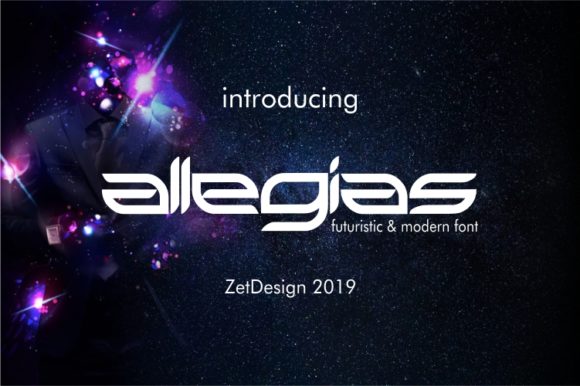
Behold, Allegias—a font family that's destined to make your designs shine brighter than the stars. From the visionary minds at ZetDesign, Allegias emerges as a modern masterpiece. Its sleek, futuristic design will transport your words straight into the future.
With its bold strokes and captivating curves, Allegias commands attention like no other. It's the perfect font to make your projects stand out, whether you're crafting stunning logos, captivating posters, or creating mesmerizing social media graphics. Allegias will ensure that your designs attract all eyes, leaving a lasting impression that's simply unforgettable.
Get ready to embark on a design journey like never before. Allegias is more than just a font; it's a gateway to a boundless universe of creativity. Unleash your imagination and witness the magic unfold as Allegias transforms your words into works of art.
For the pioneers of design, the explorers of the digital realm, and the dreamers who dare to imagine the impossible, Allegias is your font. Dare to embrace the future and let Allegias elevate your designs to new heights.